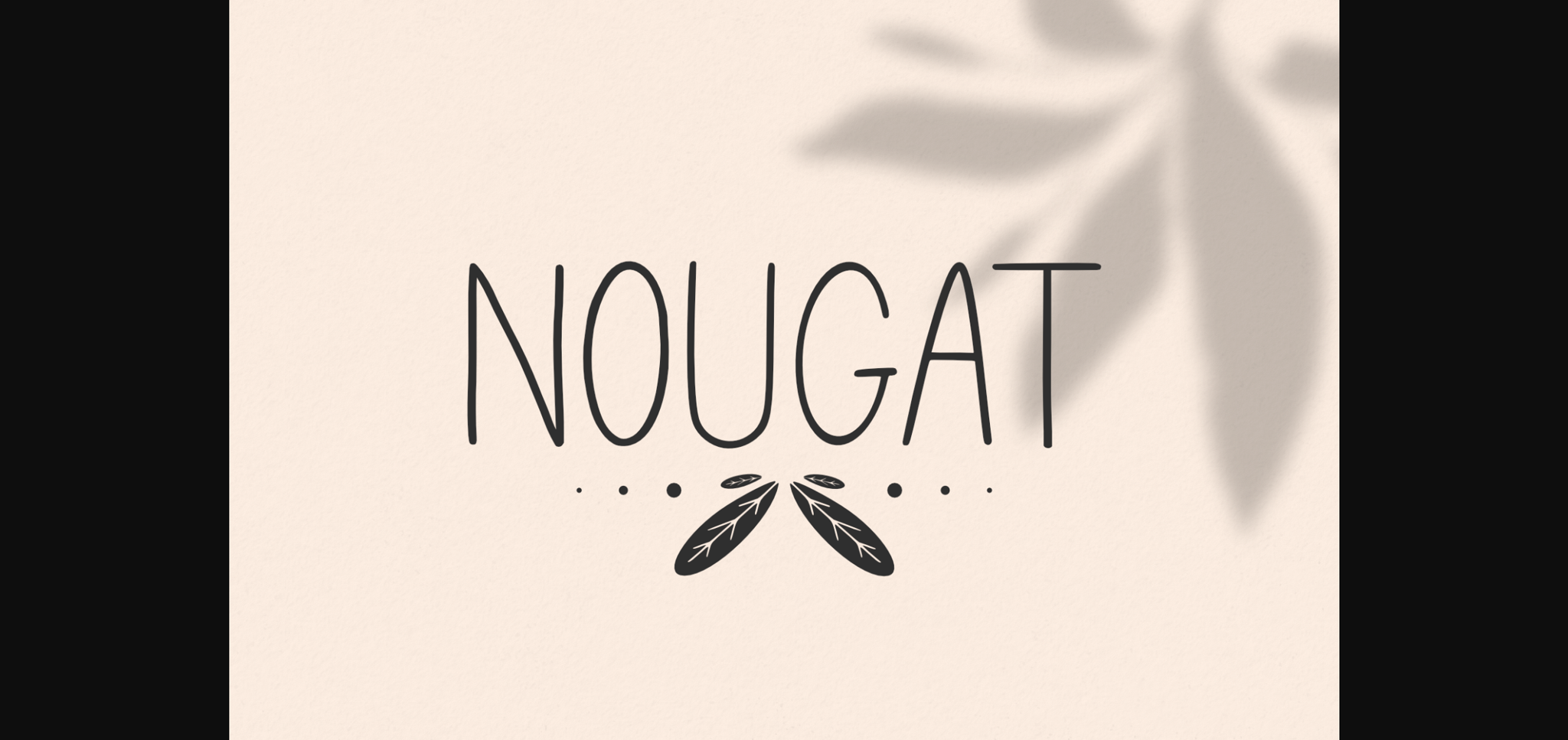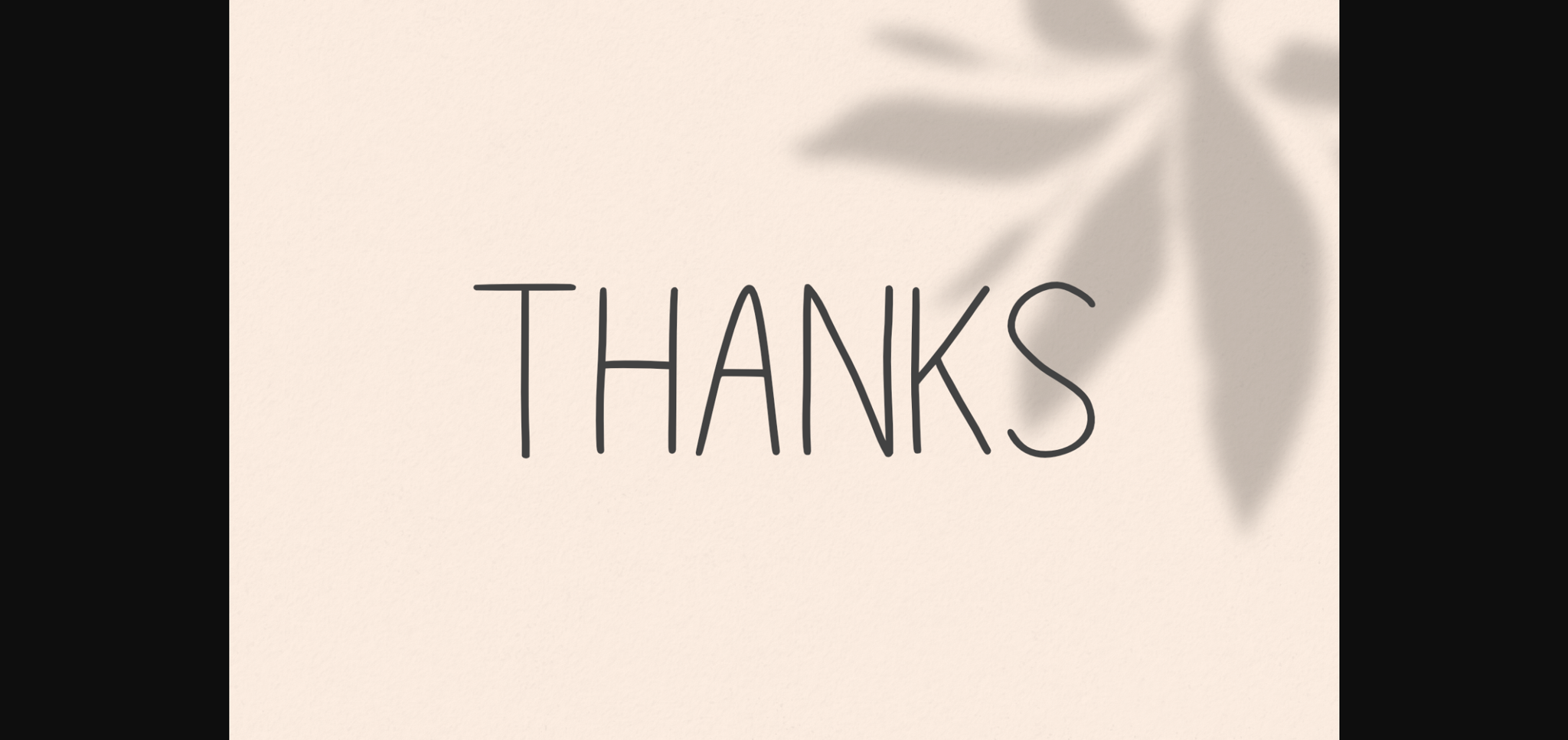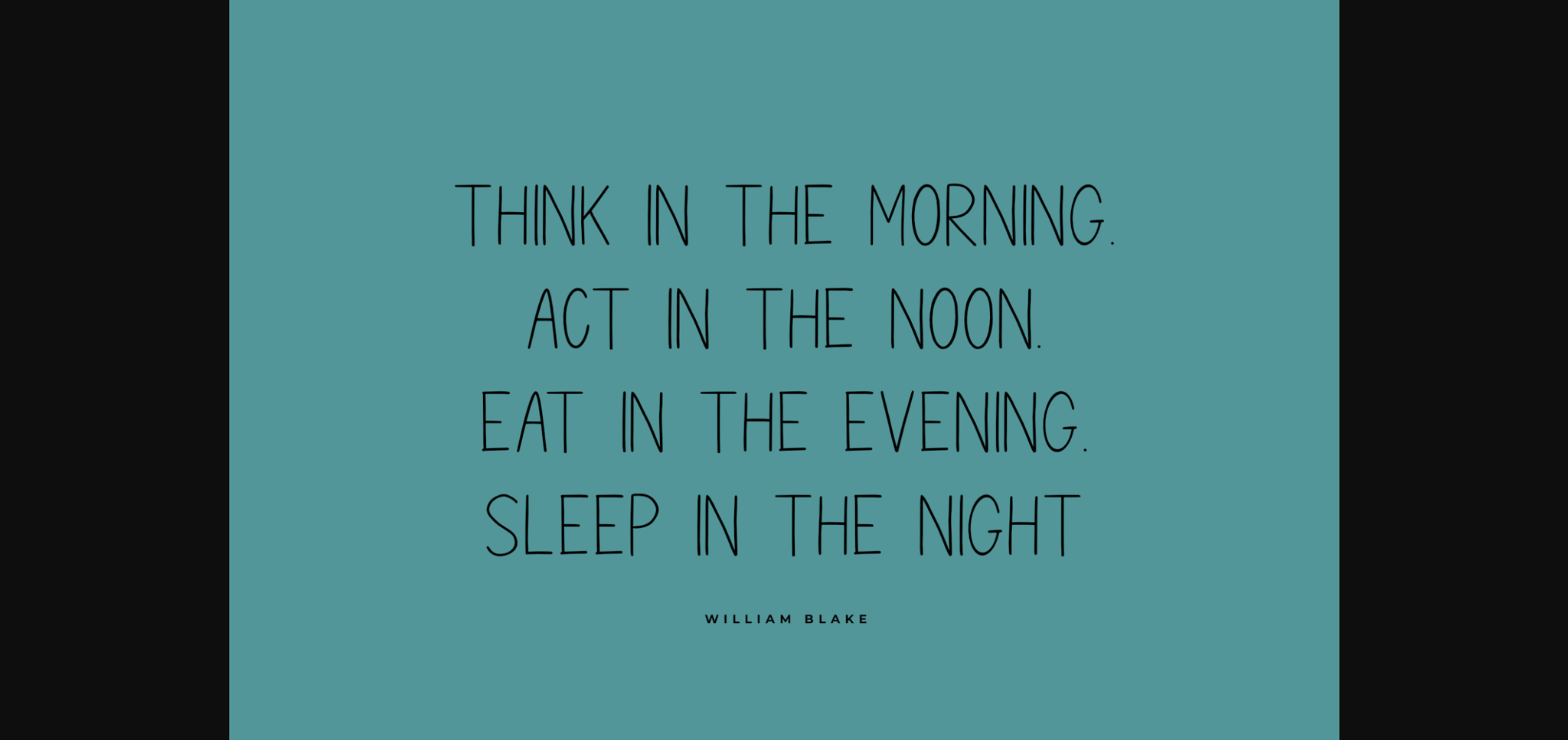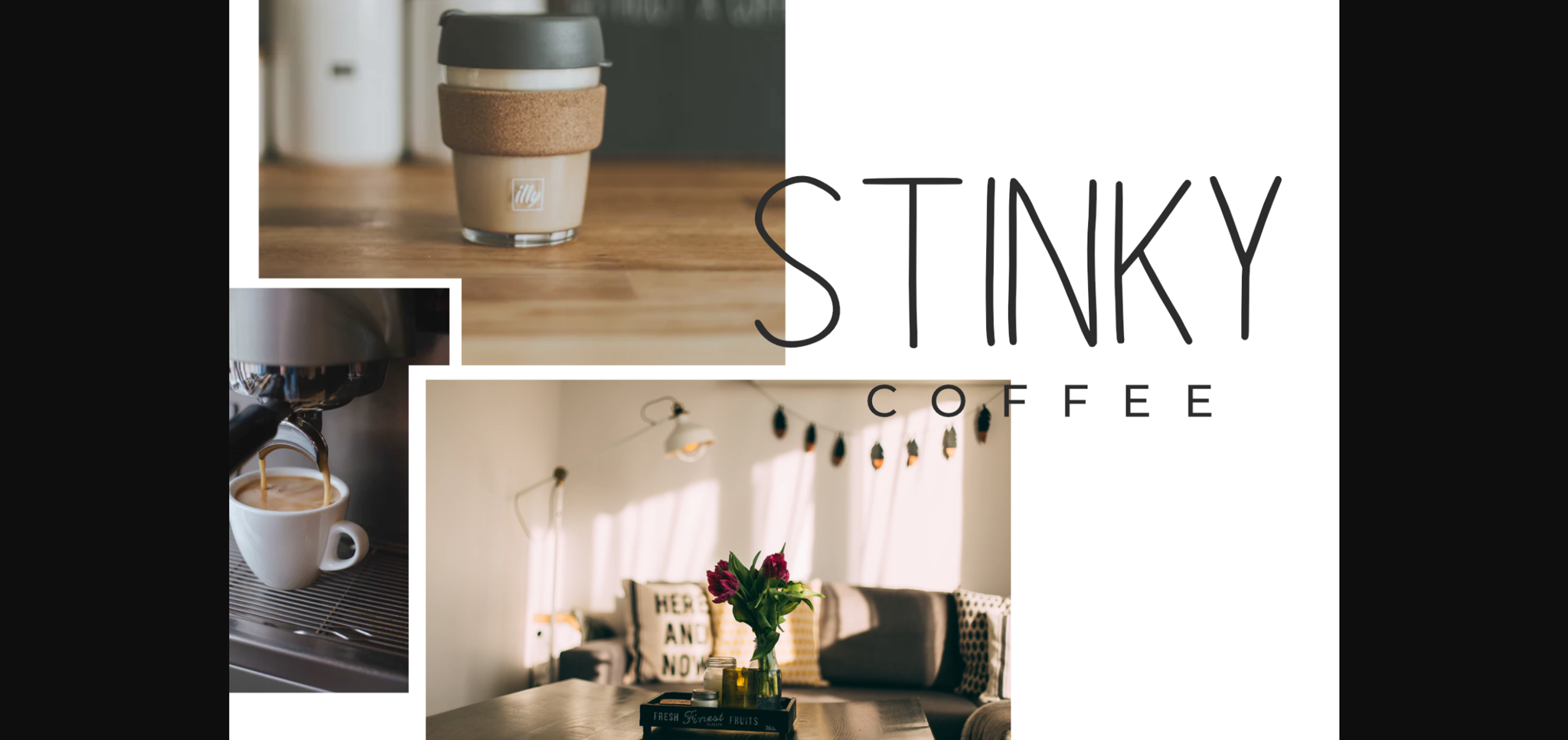
Nougat Font
About Nougat Font
Nougat feels equally charming and elegant. Use this gorgeous and unique sans serif font to bring any DIY project to life!